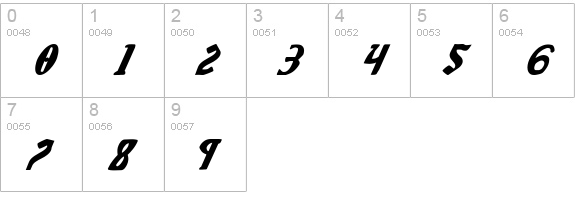
Sable Lion Italic Font Details
Sable Lion Italic is a distinctive, italic variant in the Sable typeface family \xE2\x80\x94 well suited to design and typography projects.
Introducing Sable Lion Italic, a captivating and elegant font that exudes a sense of regal charm and untamed beauty. With its sleek and slanted letterforms, this typeface effortlessly combines gracefulness and power, making it the perfect choice for projects that require a touch of sophistication and boldness. Sable Lion Italic stands out from the crowd with its unique and distinctive design. Each letter is meticulously crafted with fine details and exquisite curves, creating a harmonious flow that is both captivating and visually appealing. This font is sure to leave a lasting impression on any reader or viewer. But what truly sets Sable Lion Italic apart is its versatility and accessibility. In a world where quality fonts can often come with a hefty price tag, Sable Lion Italic breaks the mold by offering its beauty and functionality for free. Yes, you read that right – this exceptional font is freely available to download at FontsMarket.com. Whether you're a professional designer, a passionate typographer, or simply someone who appreciates the beauty of typography, Sable Lion Italic is a font that deserves a place in your collection. Its timeless elegance and effortless sophistication make it suitable for a wide range of projects, including branding, logos, invitations, headlines, and more. Embrace the allure of Sable Lion Italic and unlock its potential to elevate your designs to new heights. Download this free font today at FontsMarket.com and experience the seamless blend of style and freedom that it brings to your creative endeavors.